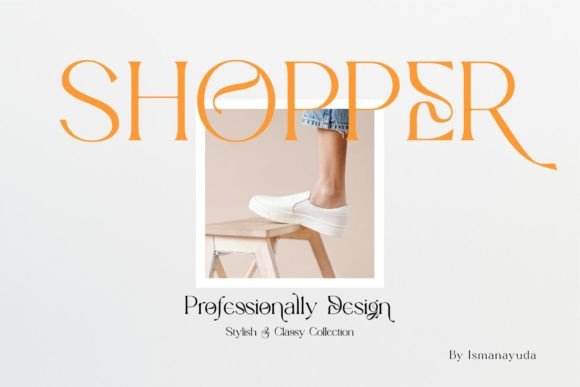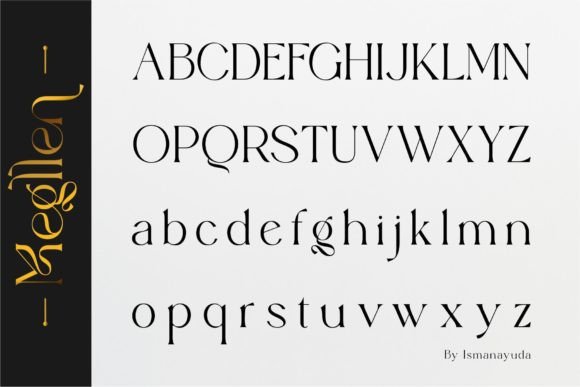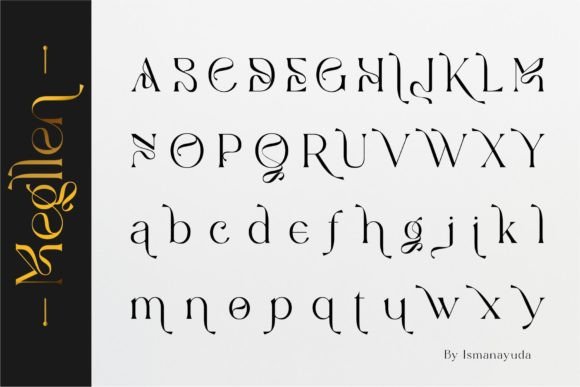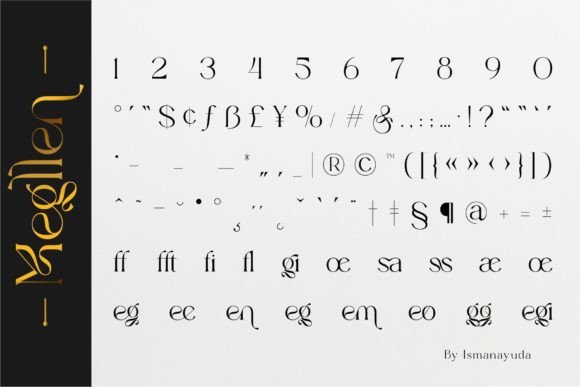
Introduction to Megllen Font
Megllen Font is a sophisticated serif typeface that blends timeless elegance with contemporary aesthetics.
Its graceful curves and sharp serifs exude a sense of professionalism and refinement With versatile letterforms and impeccable legibility, Megllen Font elevates any design project, from editorial layouts to branding and beyond.